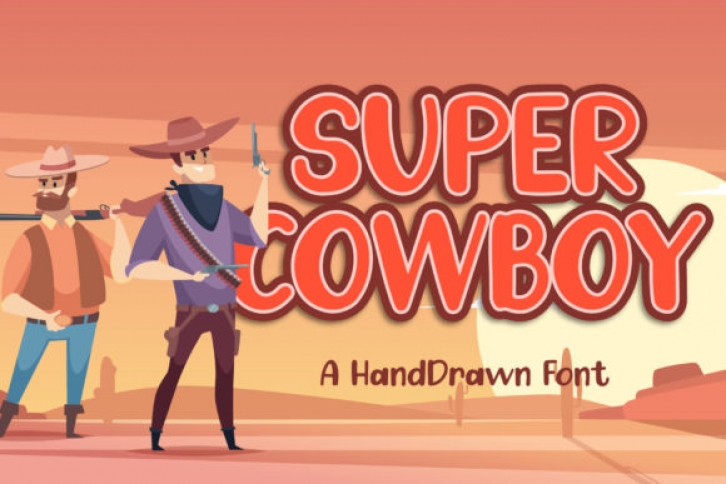
Super Cowboy is a cute and fun display font. Clean and soft, this font is the perfect fit for all of your crafty DIY projects, cricut, logos, branding, social media, and more.